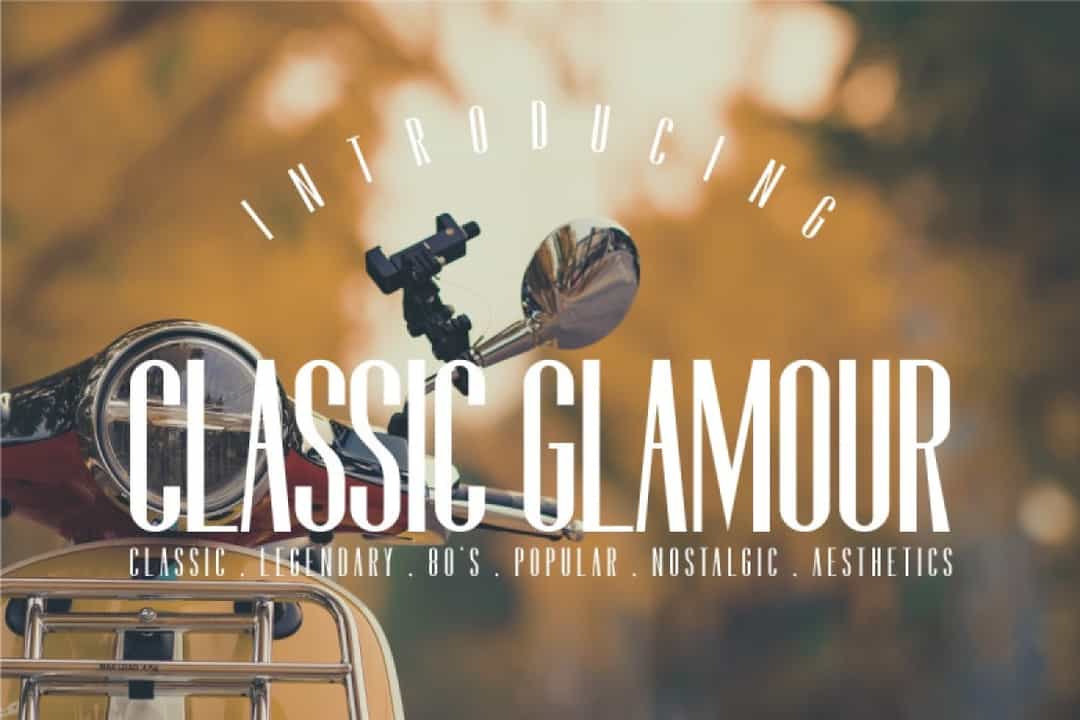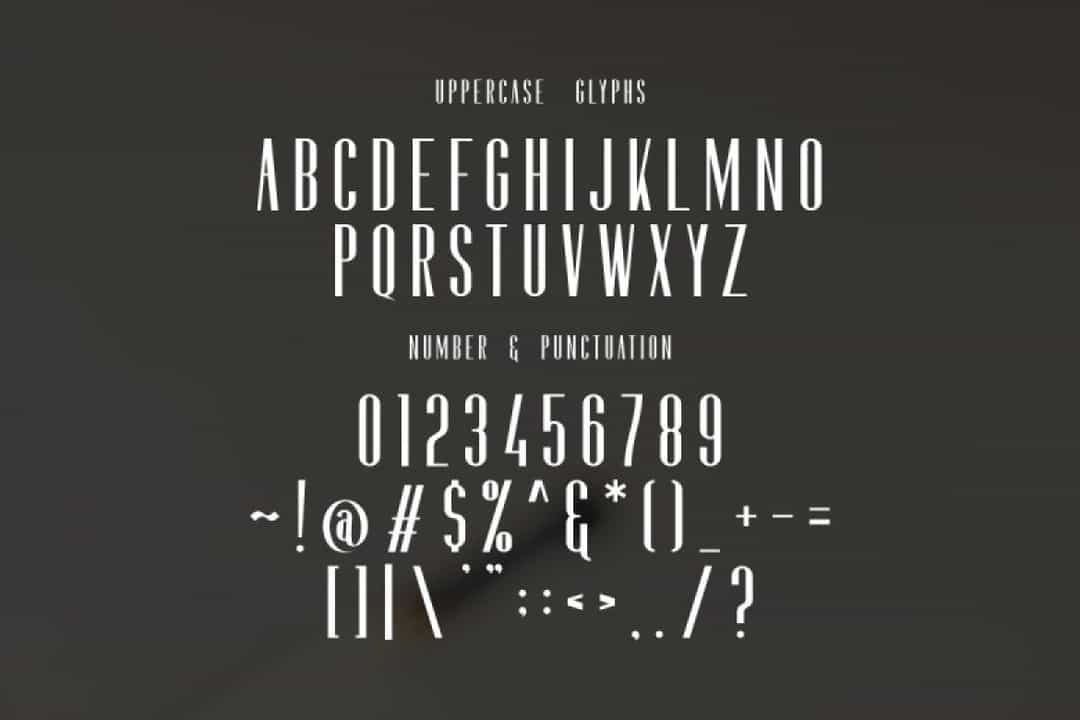
Vogenuera, an iconic sans serif font from the 1980s that was widely utilized at that time, deserves to be appreciated by today’s millennials as they do it justice. Let us usher in this golden era for this font to remain relevant today.